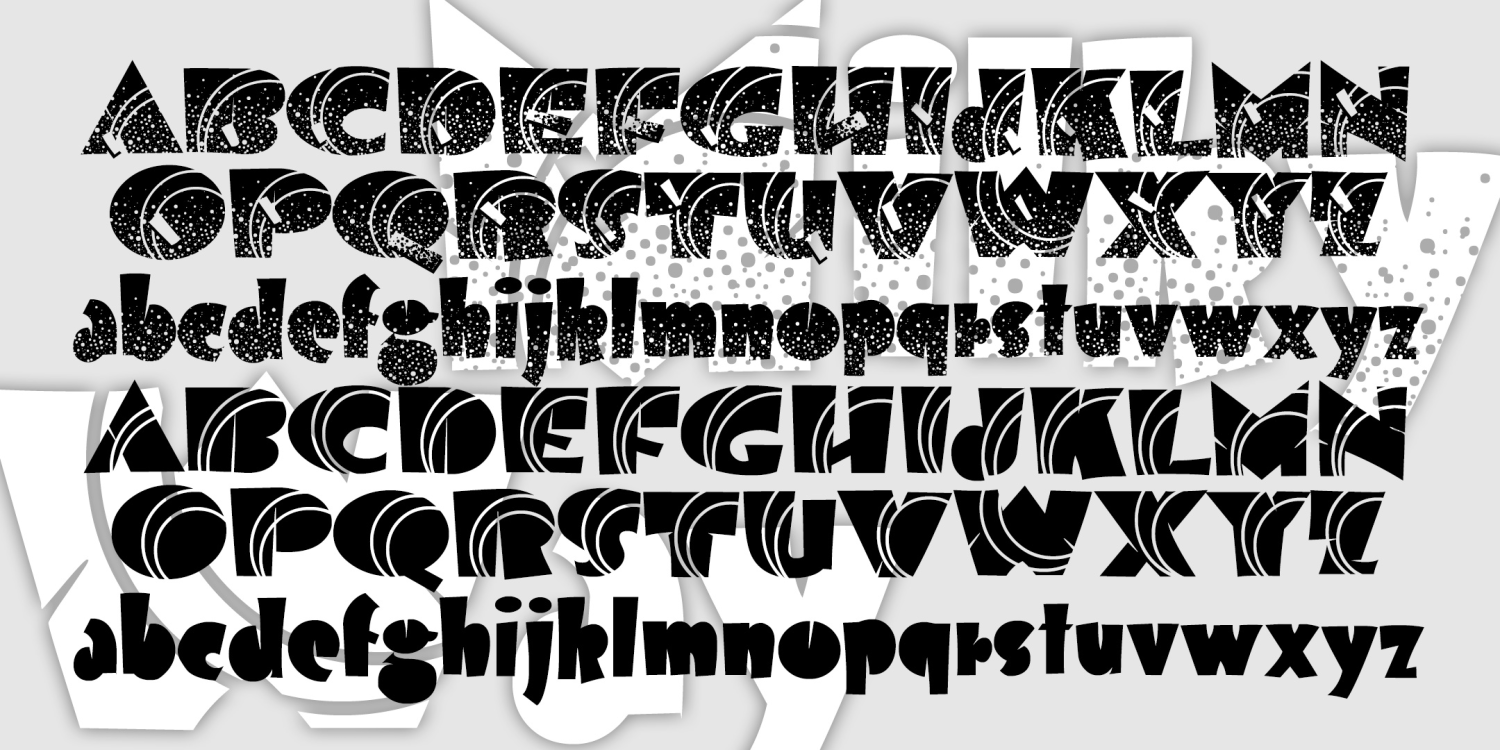
Milky Way
About Milky Way
MILKY WAY was inspired by an Art Deco alphabet seen in late 1930s Speedball lettering books by Ross F. George. A "future past" look, like the 1939 Worlds Fair and Tomorrowland. Originally, George directed that the distinctive white dots were…